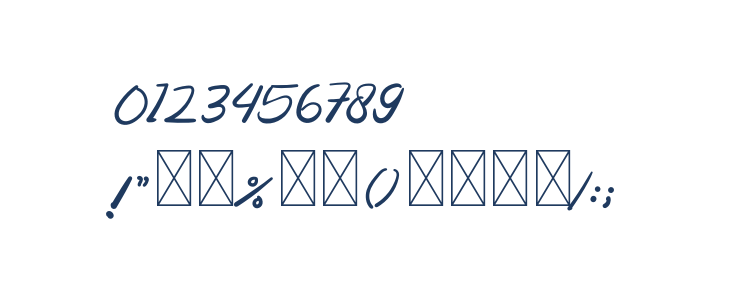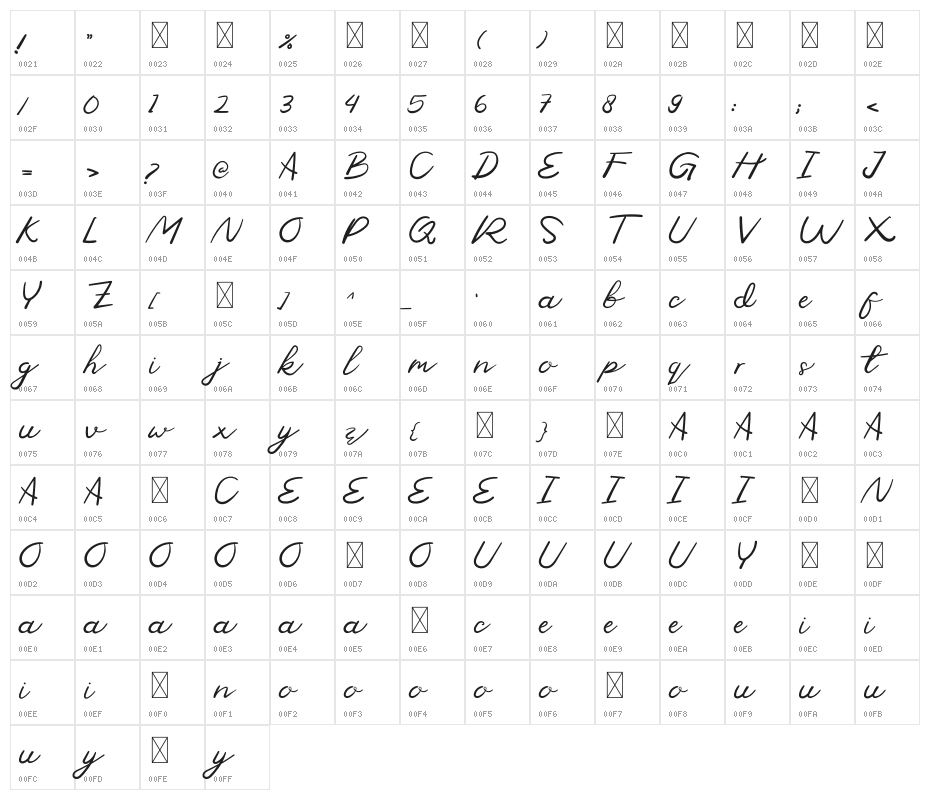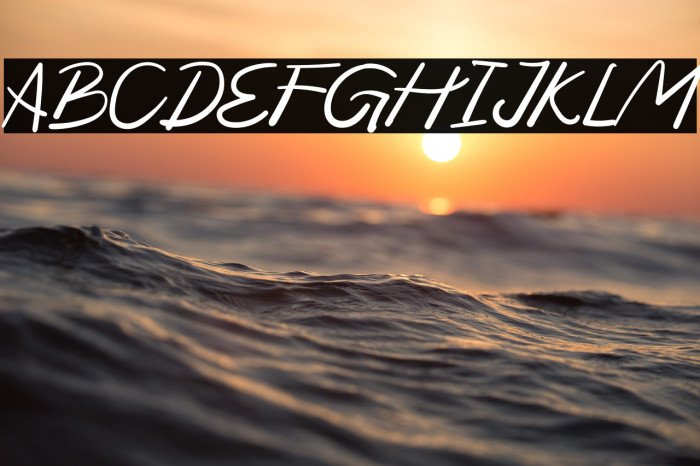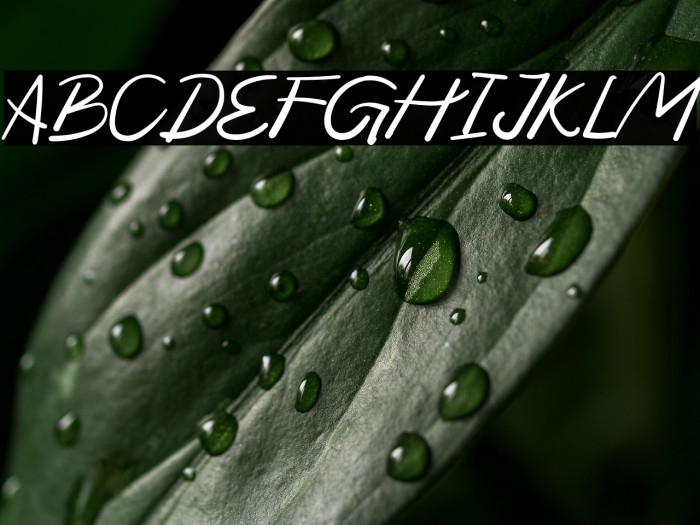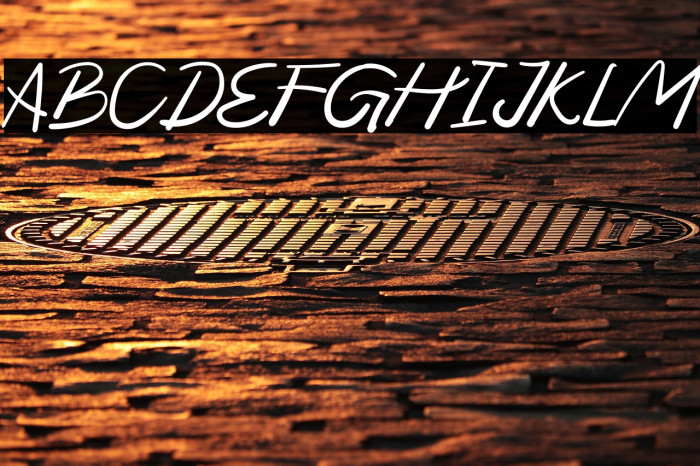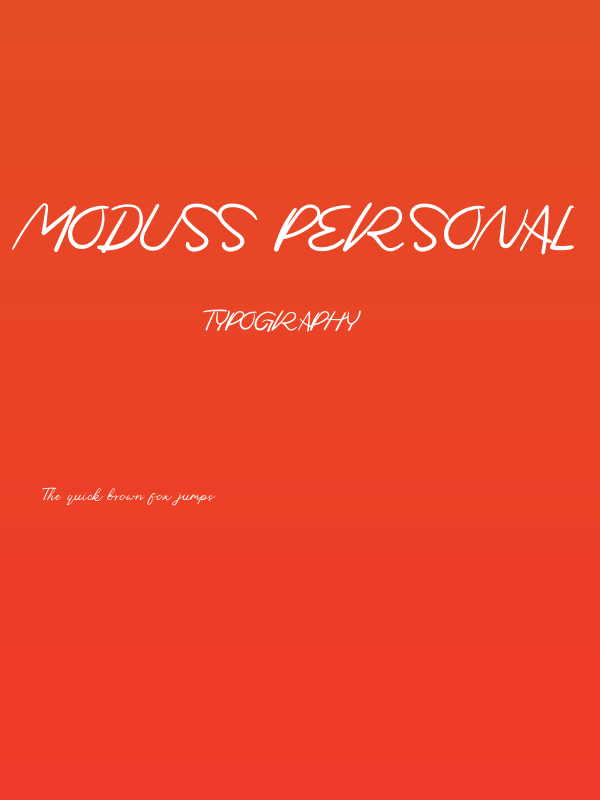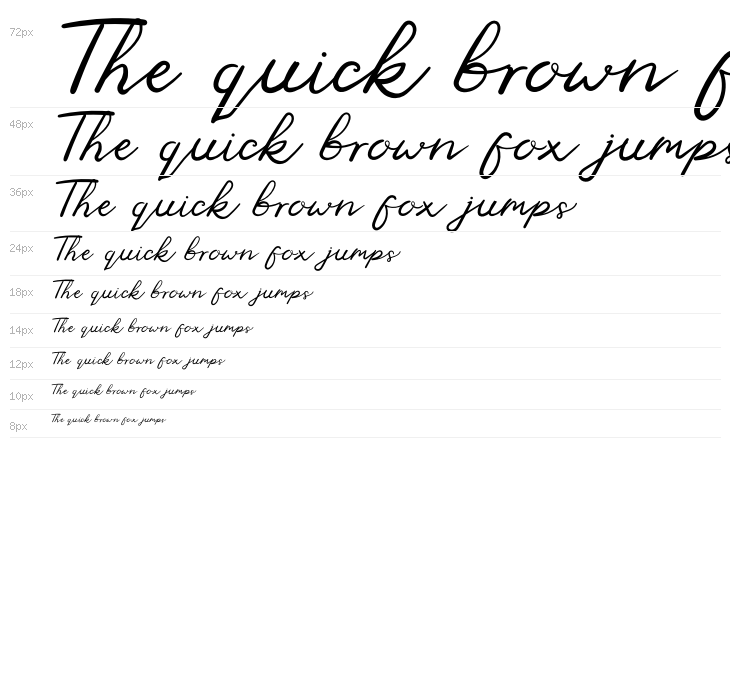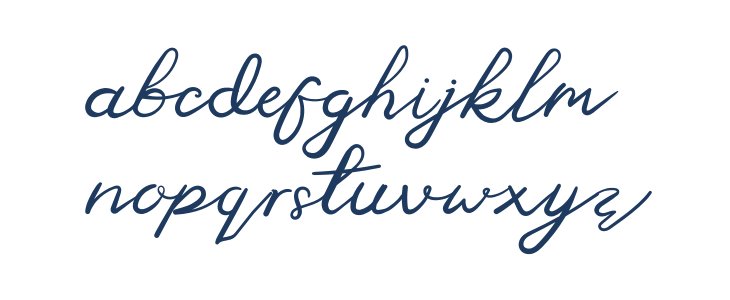
Moduss Personal Use Font
Moduss Personal Use Description
This font features a flowing, cursive style with elegant, connected letters that mimic the fluidity of handwriting. The uppercase letters are bold and slightly slanted, while the lowercase letters maintain a consistent, smooth connection, enhancing the script-like appearance. The numbers are clear and legible, maintaining the same cursive style. Special characters are included, though some appear as placeholders. This font exudes a personal, handwritten charm, making it suitable for projects that require a touch of elegance and individuality.